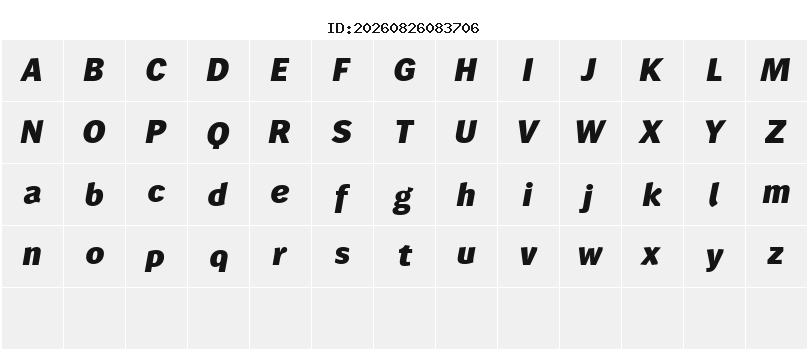
Wendelin Reduced Preview
• Font Name: Wendelin Reduced
• Font Style: 86 Fett Kursiv
• Font ID: IngoZimmermann: Wendelin Pro reduced 86 Fett Kursiv: 1997
• Full Font Name: WendelinReduced-FettKursiv
• PostScript Name: WendelinReduced-FettKursiv
• Designer: Ingo Zimmermann
• Manufacturer: Ingo Zimmermann
About Wendelin Reduced.ttf
Wendelin Reduced.ttf is a modern, elegant sans-serif font designed for ultimate readability and visual harmony. Perfect for branding, headlines, web design, and print materials.